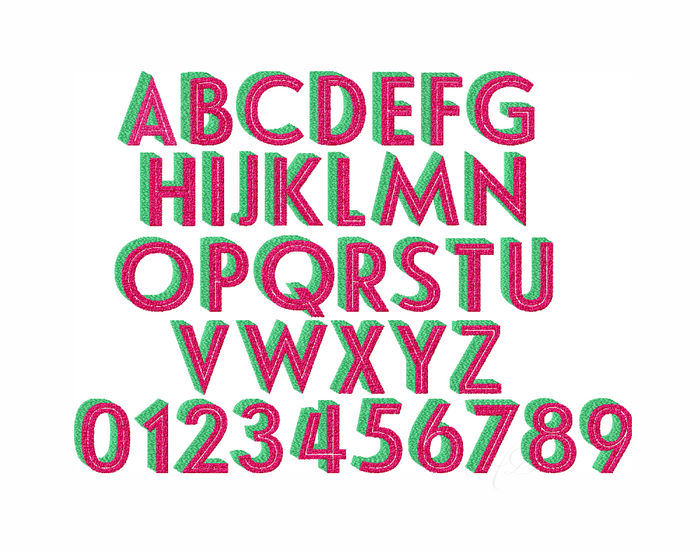
Ellis Inline Block Shadow Type Embroidery Font Package
Unlock your creativity with the Ellis Inline Block Shadow Font, a sophisticated two-color embroidery font designed specifically for crafting enthusiasts. This font features unique fill stitches, with an innovative shadow stitch to create depth and dimension in your designs. Ideal for adding a personal touch to your projects, the letters boast a recessed inline that sets them apart.